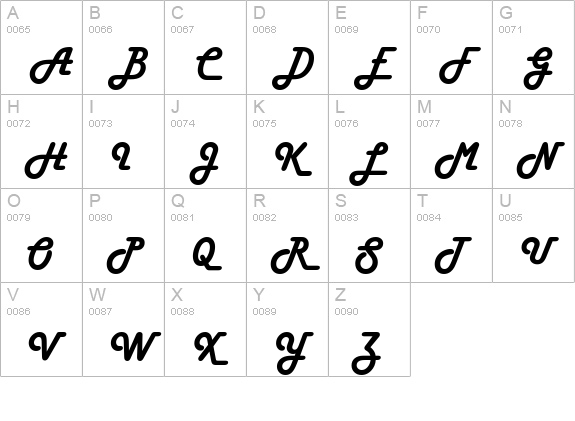
Harlow Solid Italic Font Details
Harlow Solid Italic is a distinctive, italic variant in the Harlow typeface family \xE2\x80\x94 well suited to design and typography projects.
Harlow Solid Italic is a unique and elegant font that effortlessly combines the best of both worlds - a bold and solid presence with a touch of gentle slant. This italicized variation of the Harlow Solid typeface adds a subtle sense of sophistication and flair to any design project. With its sleek and stylish appearance, Harlow Solid Italic is the perfect choice for a variety of creative endeavors. Whether you're designing a logo, creating eye-catching headlines, or crafting invitations for a special occasion, this font will make a lasting impression. What sets Harlow Solid Italic apart is not only its aesthetic appeal but also its versatility. It seamlessly blends classic and modern elements, making it suitable for both traditional and contemporary designs. Its rich and legible letterforms ensure that your message is conveyed with clarity and impact. One of the best things about Harlow Solid Italic is that it is available for free download at FontsMarket.com. This means that you can easily access this fantastic font without any hassle or cost. Whether you're a professional designer or a hobbyist, having access to high-quality fonts like Harlow Solid Italic can take your designs to the next level. So, if you're looking for a font that exudes elegance, versatility, and a touch of modernity, look no further than Harlow Solid Italic. Download it for free at FontsMarket.com and let your creativity soar.